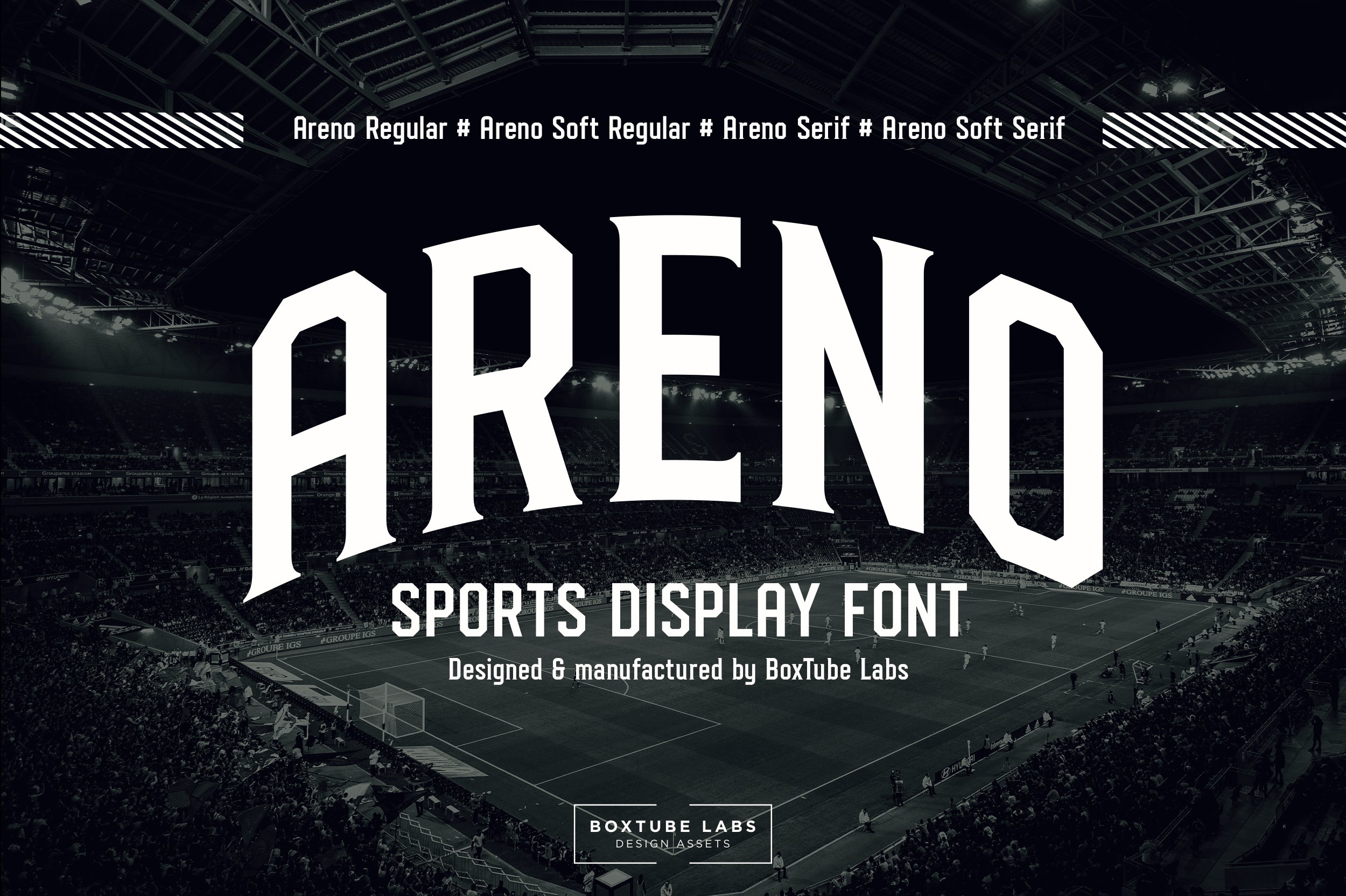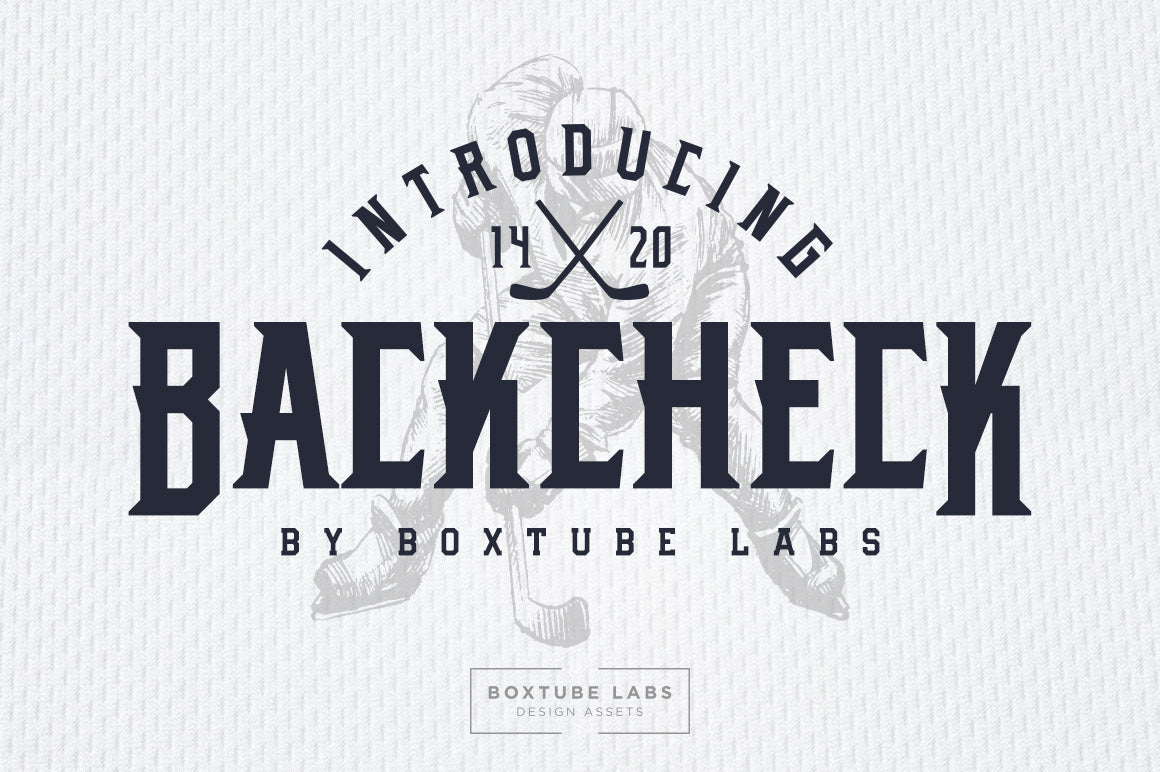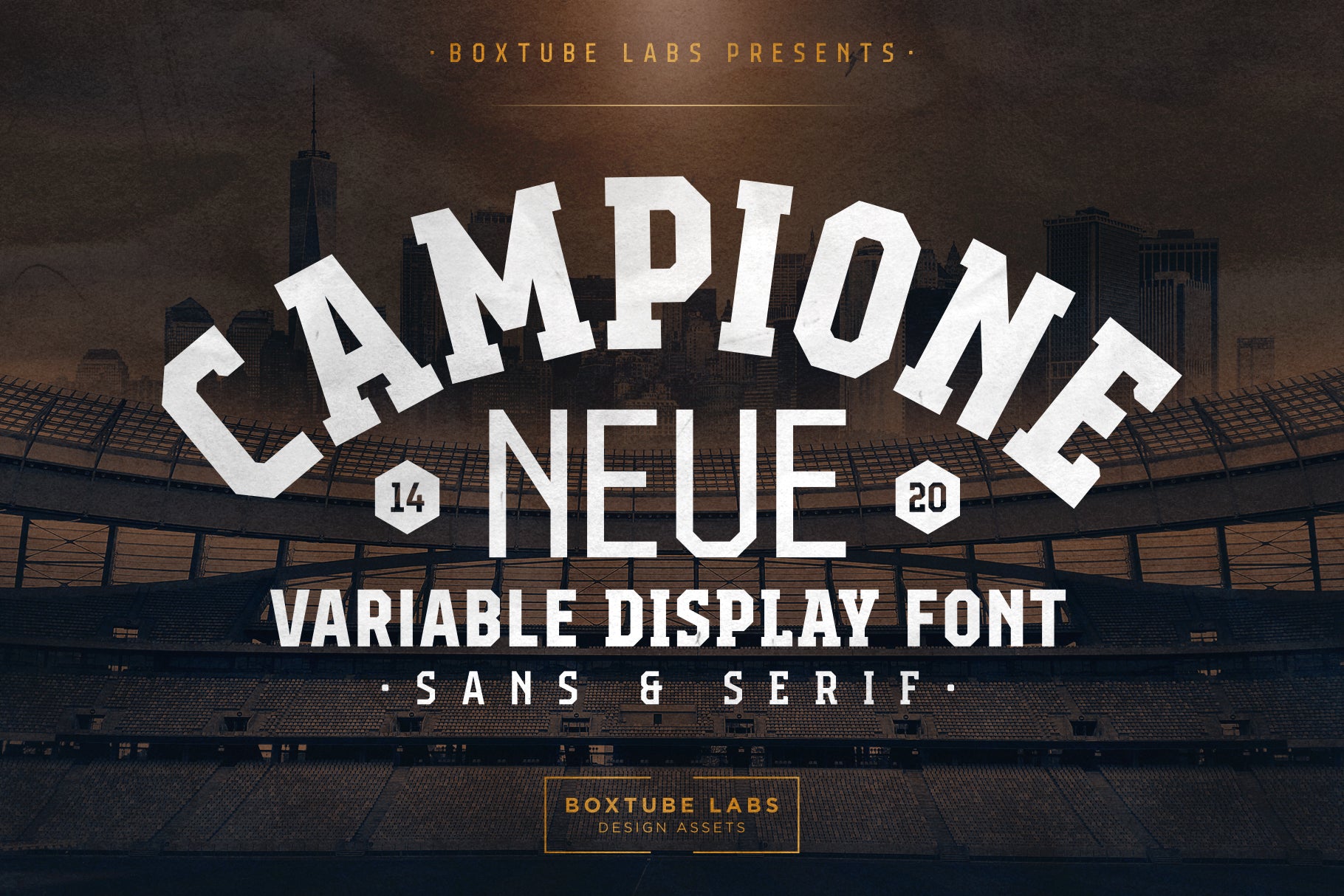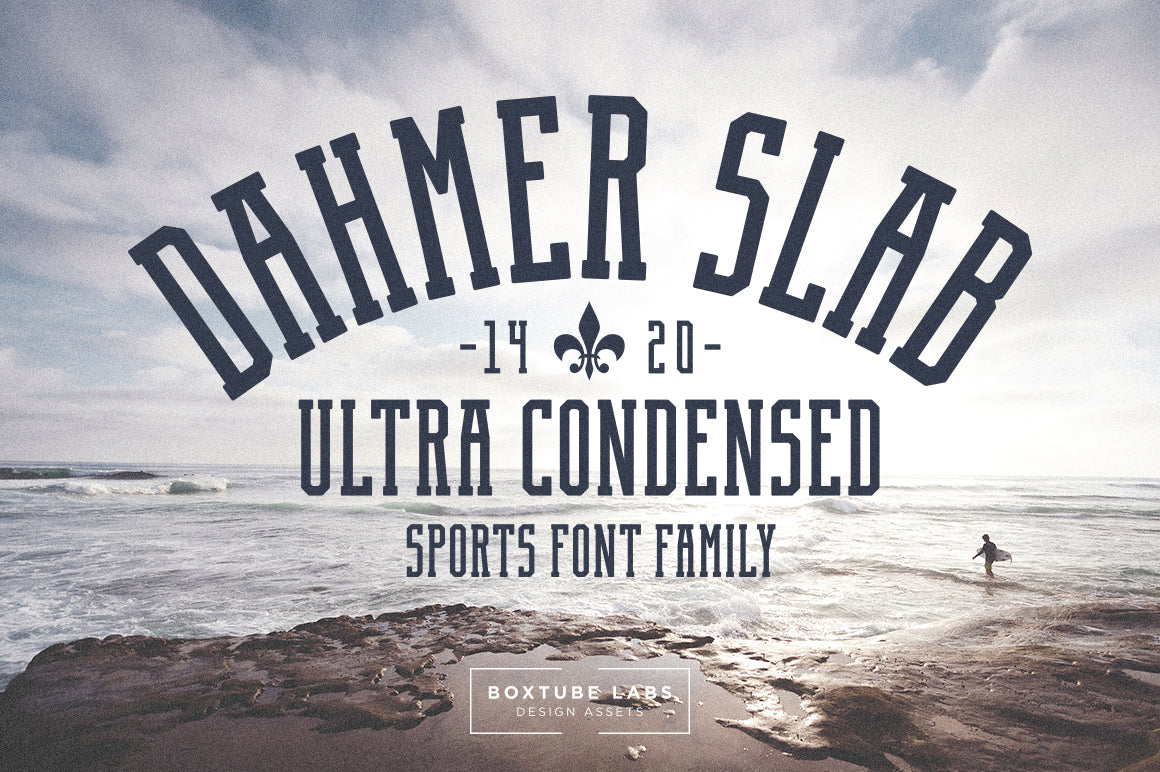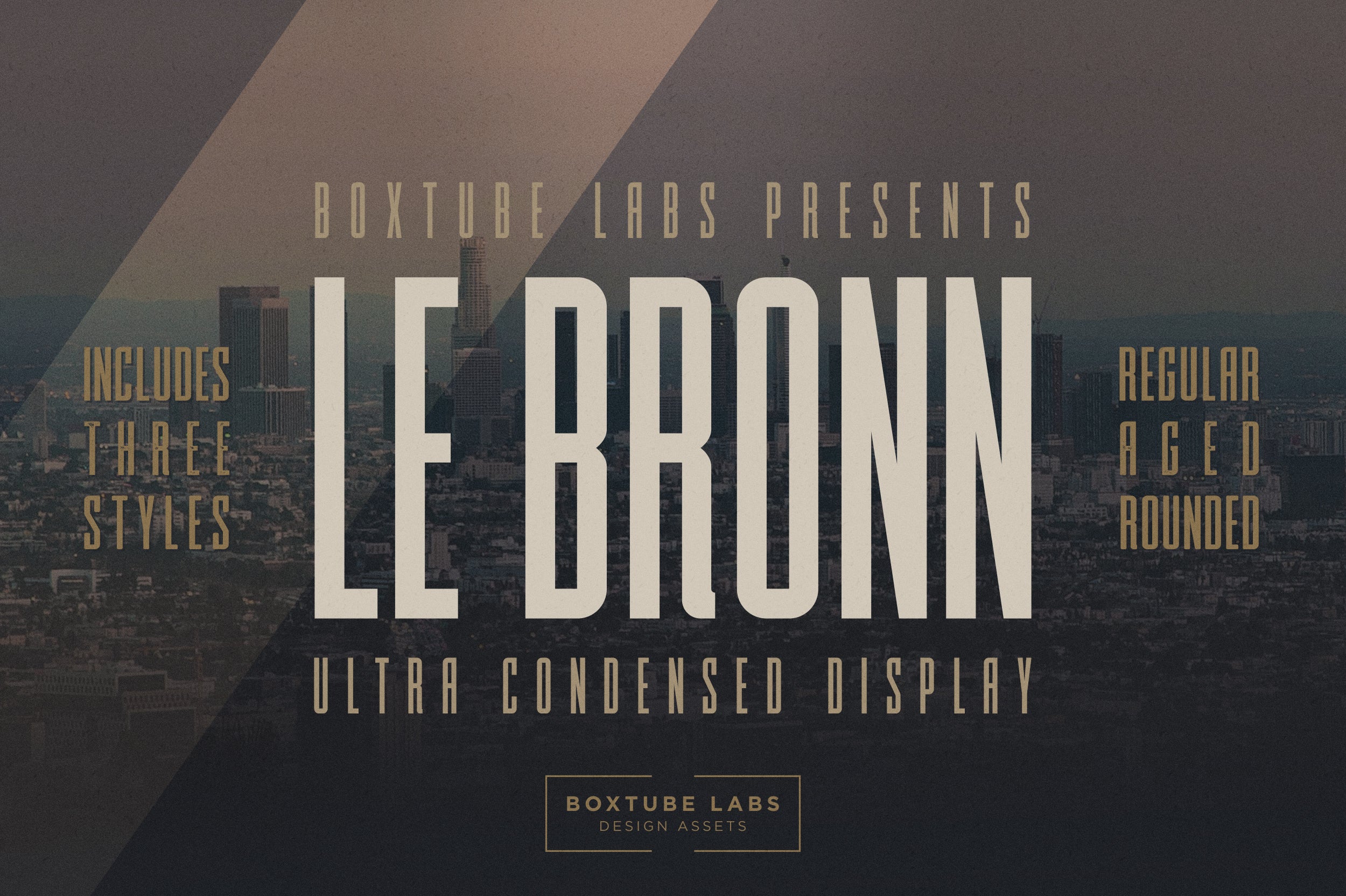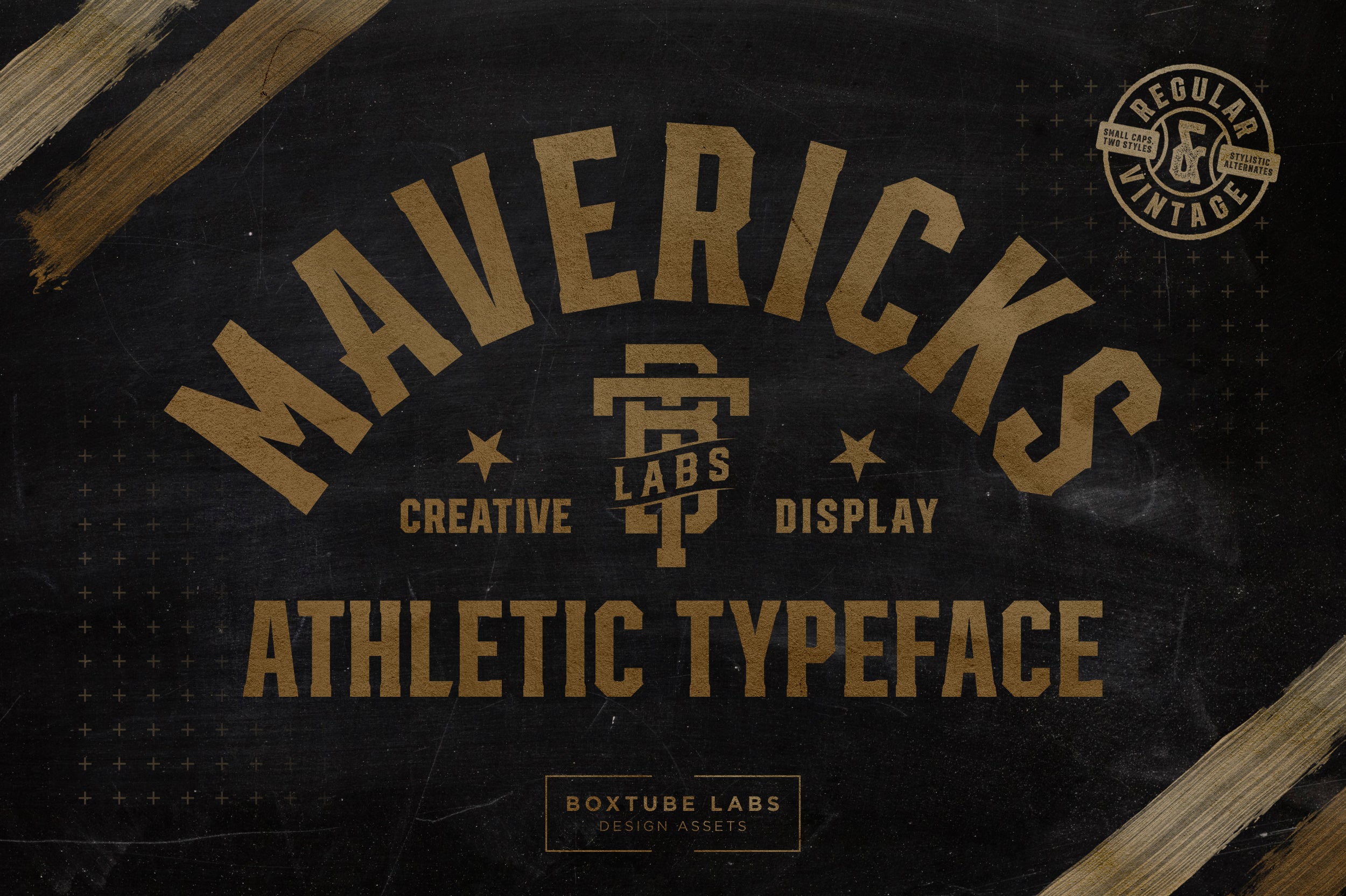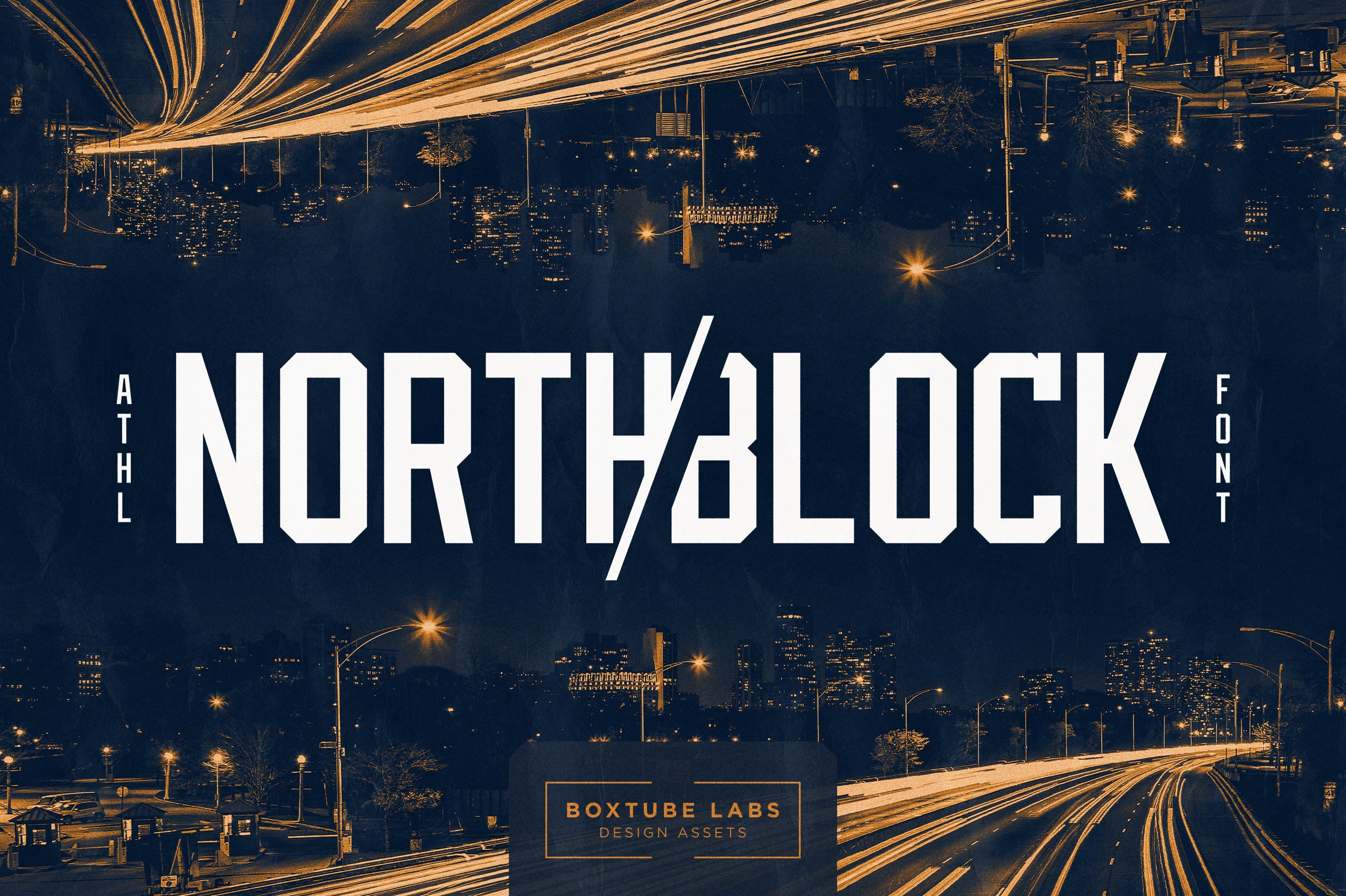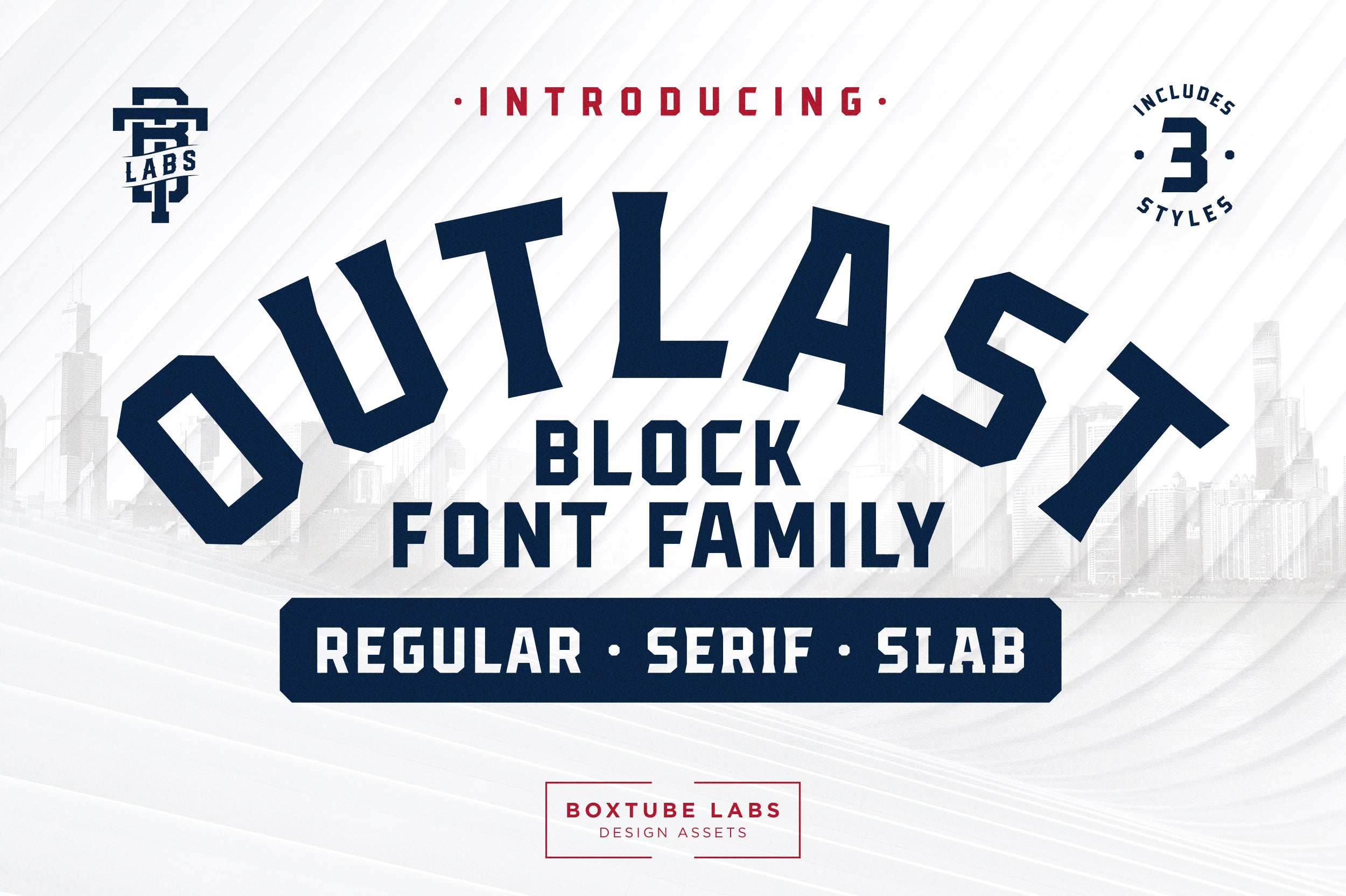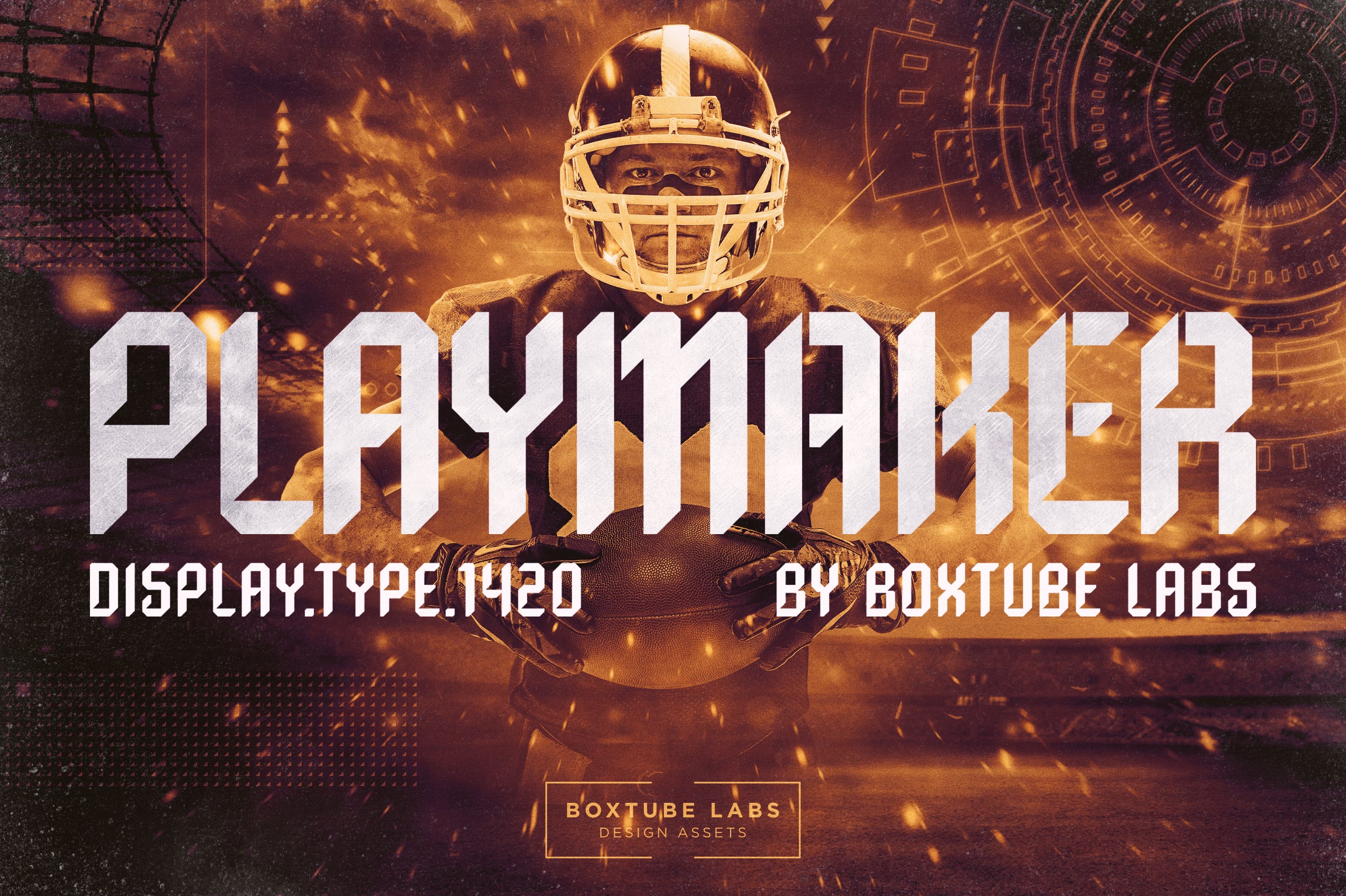
BoxTube Labs presents:Sports Display Font Bundle BTL.ALL- a collection of ALL our fonts. 18 sporty and athletic type families with a total of 122 fonts! This bundle features strong, confident and powerful typefaces designed to work great with sports logos, club branding, apparel applications, labels and more, including our top sellers Jawbreak, Areno, Empera, Kensmark and Campione Neue.